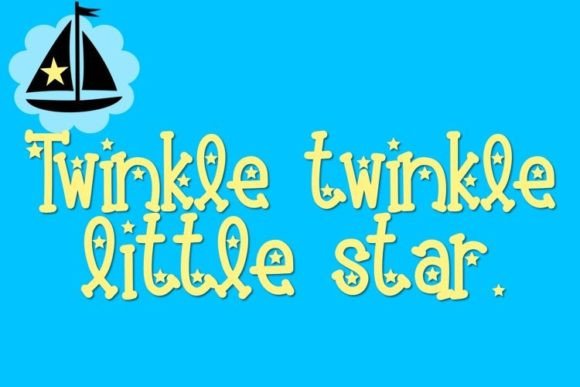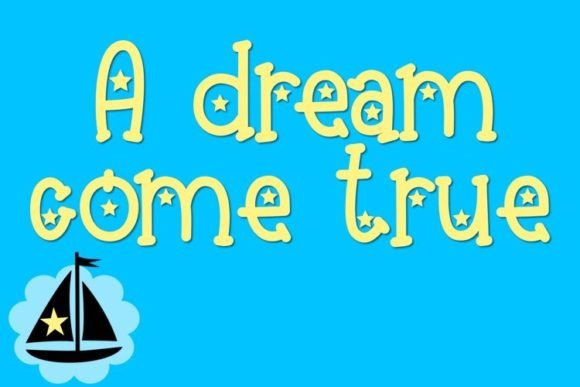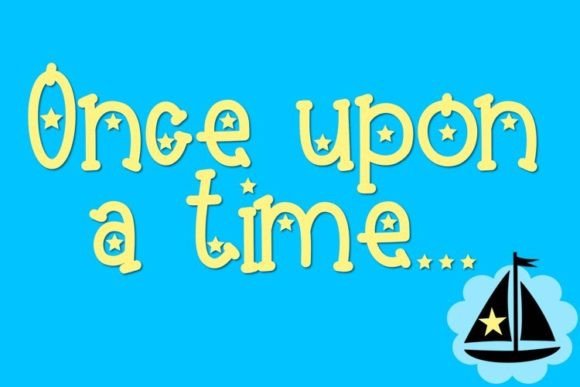
Introduction to Dreamboat Font
Dreamboat is a fun and quirky handwritten font that radiates charm and personality.
Its playful letterforms feature a mix of irregular curves and exaggerated strokes, inspired by the carefree nature of handwriting The font’s informal and breezy design creates a sense of approachability and friendliness, making it perfect for anything from social media graphics to greeting cards.
Key Features of Dreamboat Font